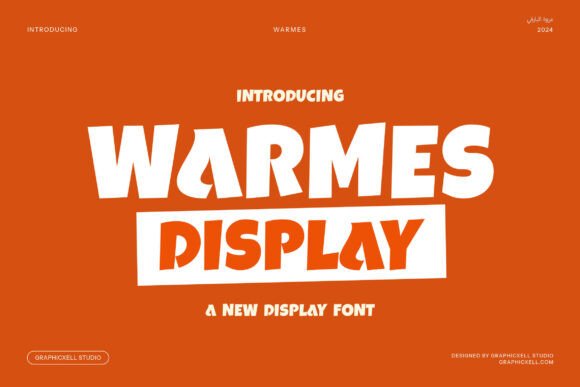
Warmes Font: Elevate Your Design with a Modern and Playful Display Font
In the world of typography, fonts play a crucial role in defining the visual identity of a brand or design project. With the vast array of fonts available, finding the perfect one that combines modernity with a touch of nostalgia can be challenging. However, Warmes Font has emerged as a game-changer, offering a unique blend of contemporary design sensibilities and retro charm.
Introducing Warmes: A Modern and Playful Display Font
Warmes is a modern and playful display font designed to bring fresh energy and a touch of retro nostalgia to any design project. Its unique, fun shapes and clean sans-serif lines make it an ideal choice for projects that want to stand out with personality and style. Warmes effortlessly combines modern design sensibilities with a dash of vintage charm, making it perfect for a wide range of creative endeavors.
Perfect for Logos and Branding
Warmes offers a distinctive look that can elevate any brand identity. Its bold, geometric shapes and lively character make it perfect for creating memorable, high-impact logos that resonate with a wide audience. Whether youβre designing for a trendy food brand, a contemporary boutique, or an exciting new product line, Warmes delivers the ideal balance of modern flair and timeless appeal.
- Food and Beverage: Use Warmes to create eye-catching logos and packaging for food brands, cafes, or restaurants.
- Fashion and Apparel: Add a touch of modern style to your fashion brand with Warmes, perfect for clothing labels, boutiques, or accessories.
- Lifestyle and Product Design: Warmes is ideal for product packaging, promotional materials, and branding for lifestyle products.
Versatility Across Digital and Print Mediums
Warmes is equally effective across digital and print mediums. On websites, Warmes adds a sense of playfulness and energy, ensuring your online presence feels fresh and engaging. In magazine layouts, its unique display qualities create striking headlines and pull quotes that draw the eye.
Digital Media
- Websites: Use Warmes to create engaging and modern website headers, titles, and promotional materials.
- Social Media: Elevate your social media presence with Warmes, perfect for creating eye-catching posts, ads, and graphics.
- Email Marketing: Add a touch of personality to your email campaigns with Warmes, making your messages stand out.
Print Media
- Magazines and Newspapers: Use Warmes to create striking headlines, titles, and pull quotes that capture attention.
- Posters and Flyers: Warmes is perfect for creating eye-catching posters and flyers that promote events, products, or services.
- Packaging: Add a touch of modern style to your product packaging with Warmes, making your products stand out on store shelves.
Warmes in Advertising
The versatility of Warmes shines in advertising, where its fun and modern aesthetic makes it perfect for capturing attention in:
- Product Packaging: Use Warmes to create eye-catching packaging that stands out on store shelves.
- Social Media Campaigns: Warmes is ideal for creating engaging social media ads that resonate with a wide audience.
- Billboards and Outdoor Ads: Make a bold statement with Warmes on billboards and outdoor ads, perfect for promoting events, products, or services.
The Unique Style and Character of Warmes
Warmes makes your projects feel vibrant and approachable. Its unique blend of retro-inspired shapes and modern appeal ensures that itβs the perfect choice for a wide variety of creative endeavors, from branding to advertising to editorial design.
With Warmes, you can:
- Add Energy and Creativity: Infuse your projects with a fresh and playful energy that captures attention.
- Create Unforgettable Style: Use Warmes to create a distinctive visual identity that resonates with your audience.
- Stand Out from the Crowd: Warmes helps your projects stand out in a crowded design landscape, making your brand or message more memorable.
Implementation Tips for Warmes
To get the most out of Warmes, consider the following implementation tips:
- Pair with Neutral Fonts: Pair Warmes with neutral fonts to create a balanced and harmonious design.
- Experiment with Colors: Warmes looks great in bold and bright colors, so donβt be afraid to experiment and find the perfect color scheme for your project.
- Use for Headlines and Titles: Warmes is perfect for headlines and titles, so use it to create striking and attention-grabbing text.
Warmes Font is a modern and playful display font that brings fresh energy and a touch of retro nostalgia to any design project. Its unique blend of modern design sensibilities and vintage charm makes it perfect for a wide range of creative endeavors, from branding to advertising to editorial design. With Warmes, you can elevate your design projects and create unforgettable style that resonates with your audience.